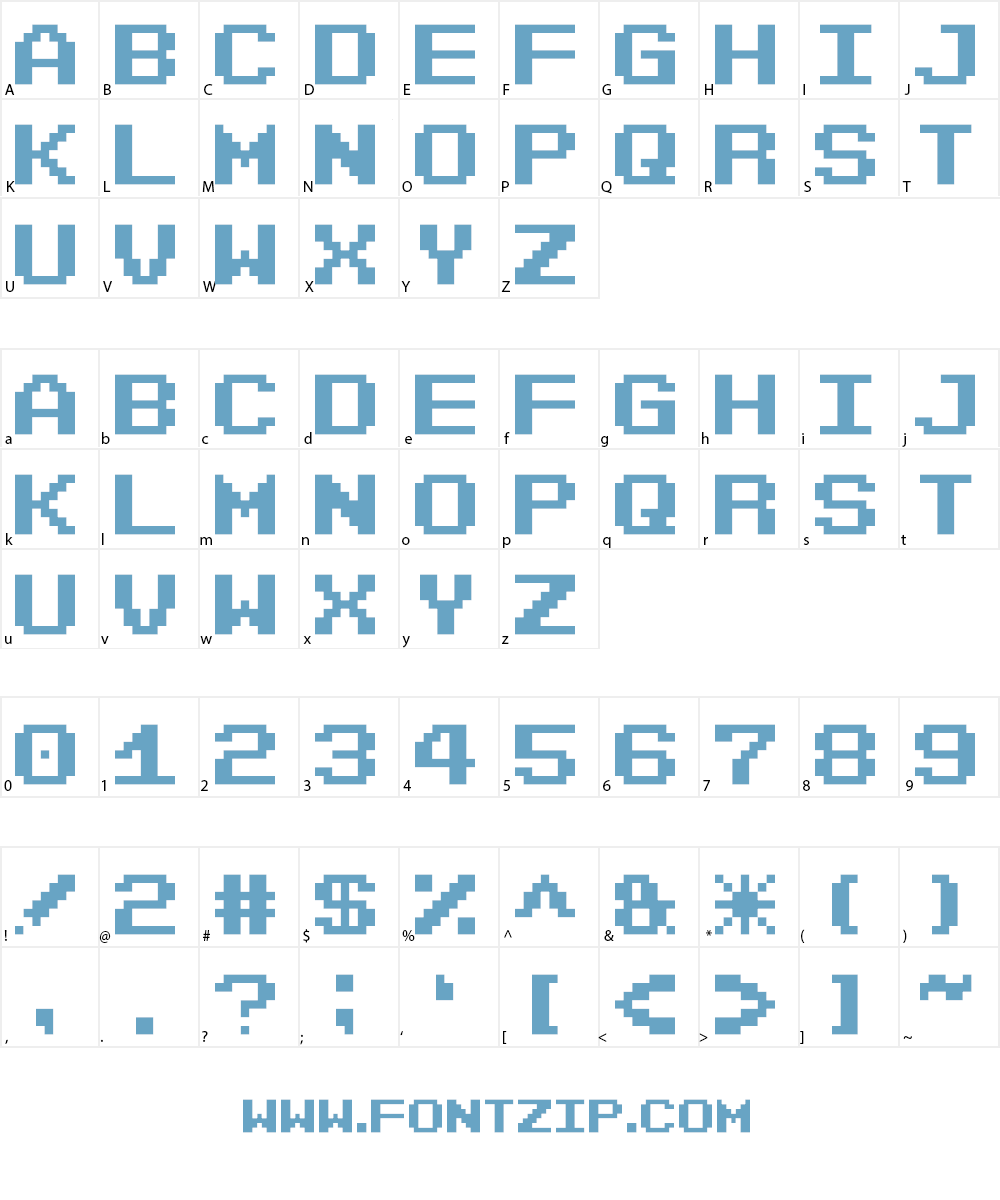
Original size: 5.25pt (use multiples of this size for pixel perfection)
Font from "Barcade Brawl", a 2015 game by yours truly. This was made to look similar to the system fonts from old arcade boards, PC microsystems, etc. You've probably seen the fonts I'm talking about; they're everywhere and many people refer to them singularly as "the arcade font" or "the NES font". This one puts my own spin on the design and adds support for Danish, Dutch, Finnish, French, German, Hungarian, Icelandic, Italian, Norwegian, Portuguese, Spanish and Swedish.